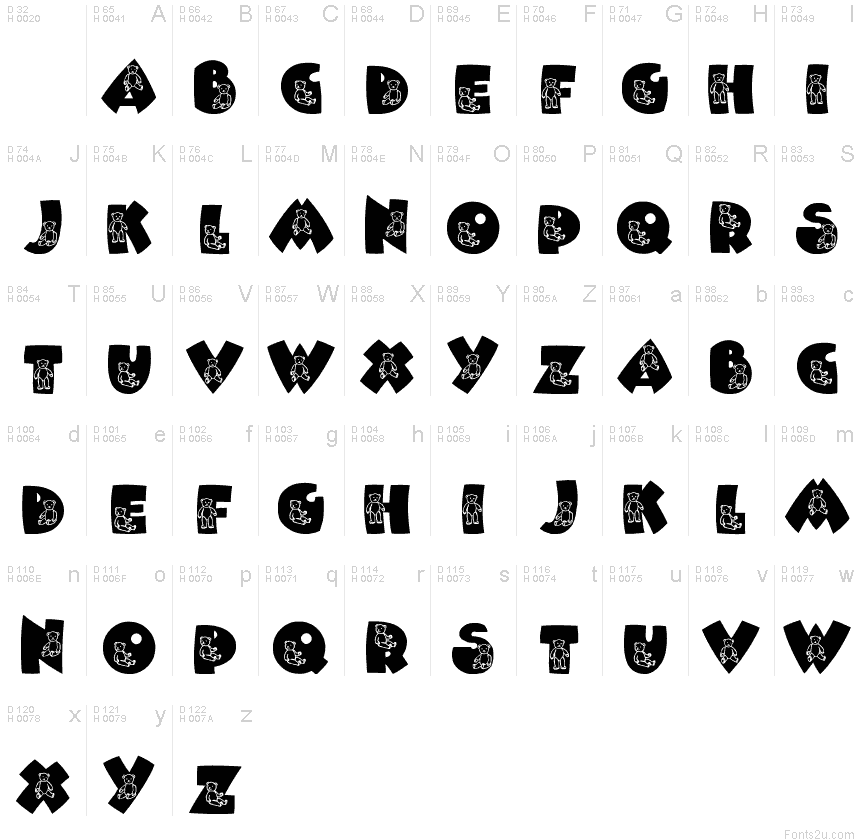
Sassys Teddys 2
Sassys Teddys 2 by Susanne Fiedler is a free teddy-bear caps display font with a playful early-2000s novelty feel. The letters are big, blunt black shapes interrupted by small white teddy drawings, so the alphabet reads like bold signage with a toy-box wink rather than straightforward block lettering.
That makes this free font a natural choice for children's party invites, nursery posters, scrapbook titles, toy-shop branding, and cheerful packaging, where a few letters can carry the theme on their own. It also fits short cover lines, title cards, and monograms, because the bear motif is repeated inside the caps instead of hanging around them like extra decoration.
Susanne Fiedler